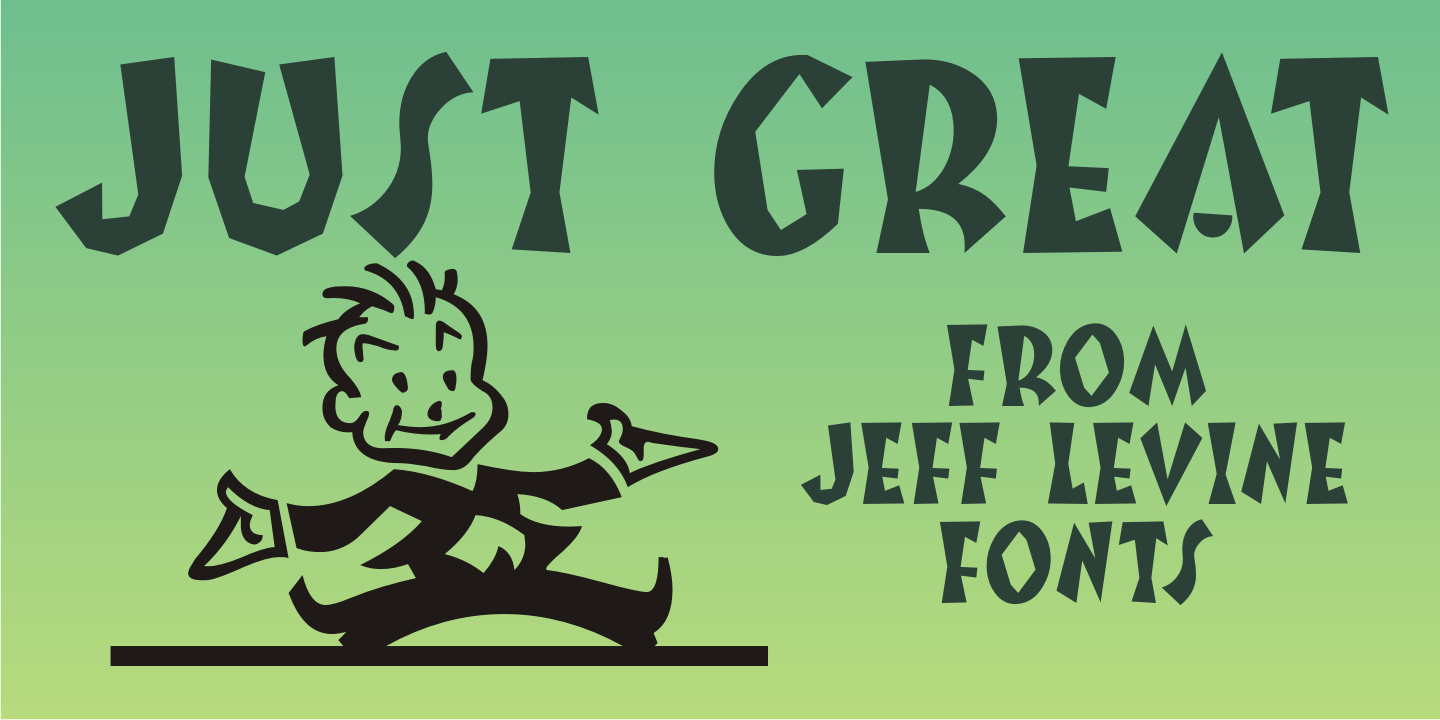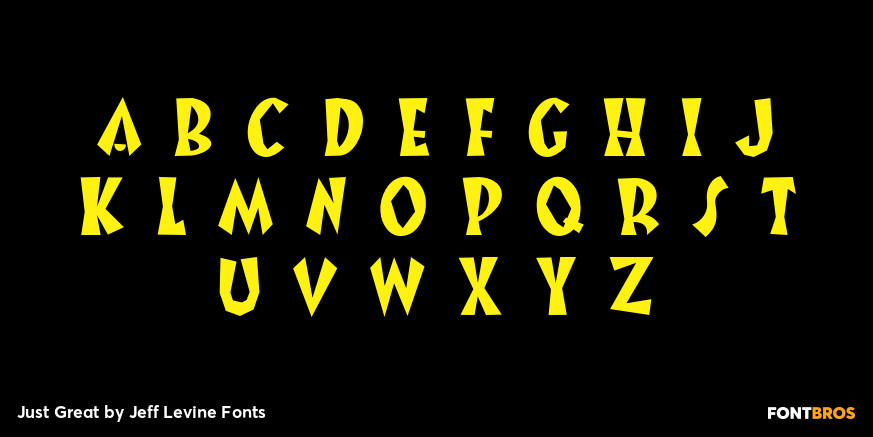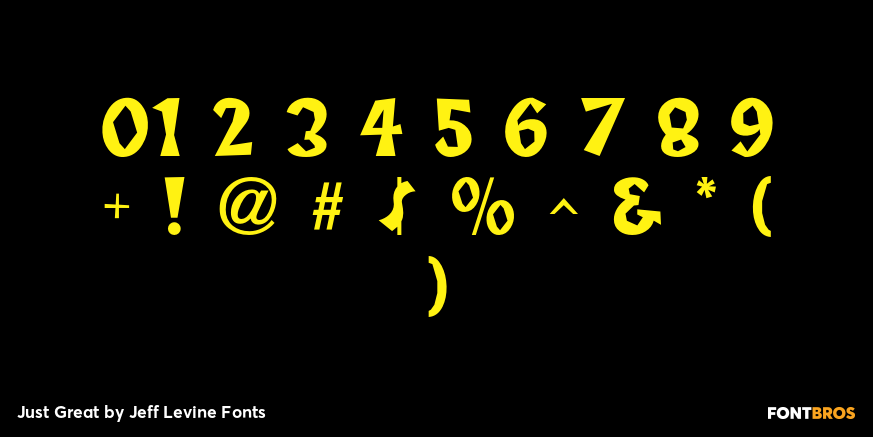
Just Great
A 1940s British music collection of classical music piano pieces entitled 'The Great Masters Series” had its title hand-lettered in a free form, casual sans serif with a cartoon style. This is now available as Just Great JNL.